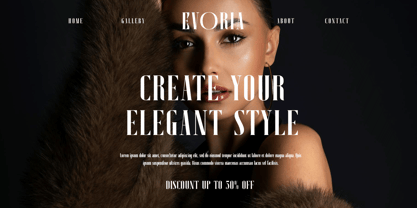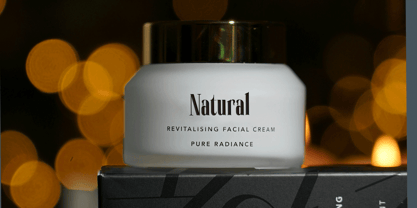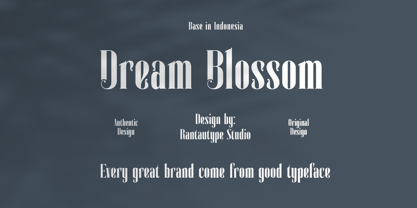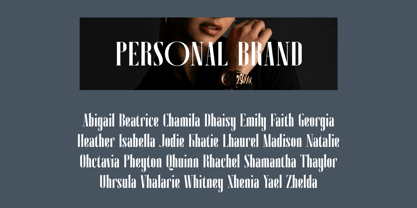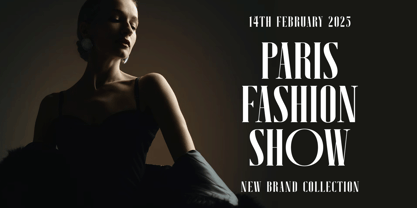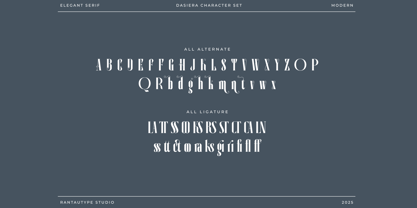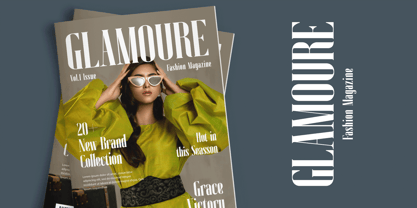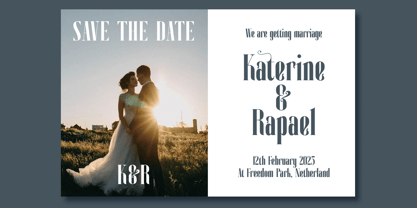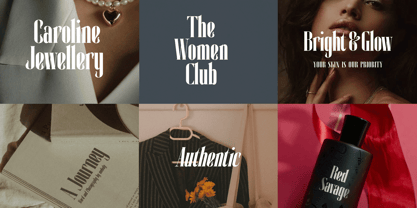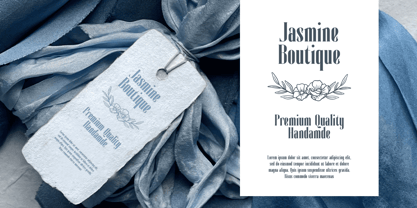
Dasiera
Dasiera is elegant serif font with grace and elegant style. Dasiera bring typography with fashionabel look to create your design project awesome. Dasiera is a perfectly choice for any creative endeavor, chic, lifestyle design such as logotype, advertisements, watermark on photography, stationery, branding project, display and magazine, invitation, corporate brand, product design, label, business project and many other project with elegant touch.
• Standart Glyphs
• Numberial and Functional
• Ligature and alternate